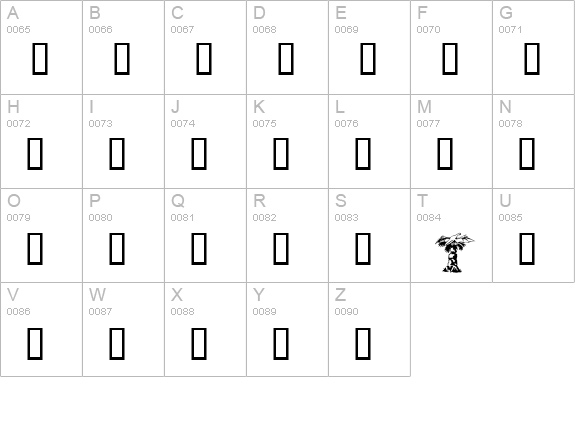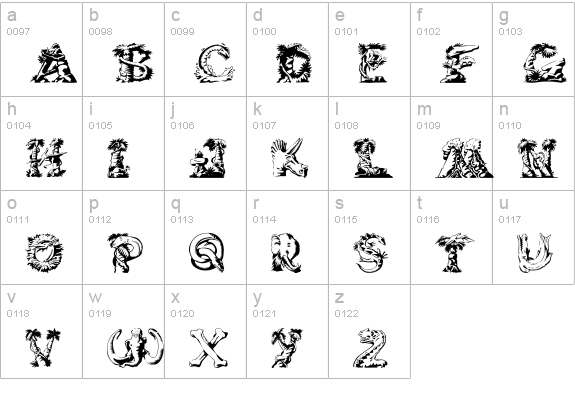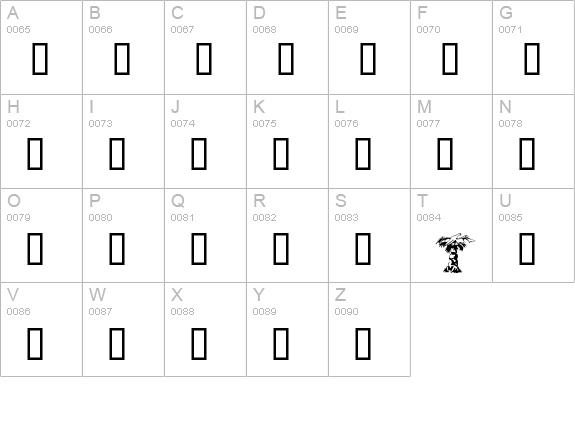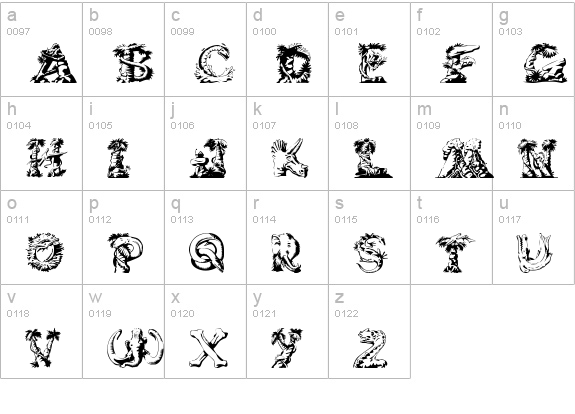
Lost World Font Details
Introducing Lost World font, a captivating typeface that will transport you to a mysterious and enchanting realm. Inspired by ancient civilizations and forgotten lands, this font exudes a sense of adventure and discovery. The intricate details and unique characters of Lost World font will add a touch of mystique to your projects, whether you're designing a book cover, creating a logo, or crafting a poster. Best of all, Lost World font is completely free to download at FontsMarket.com. Embrace the magic and intrigue of this font and unleash your creativity with its bold and striking appearance. Let Lost World font guide you on a journey through time and imagination, as you bring your designs to life with its captivating charm. Download now and embark on a visual exploration like never before.